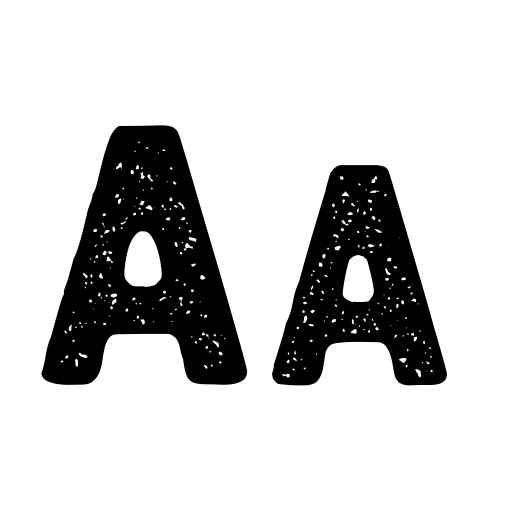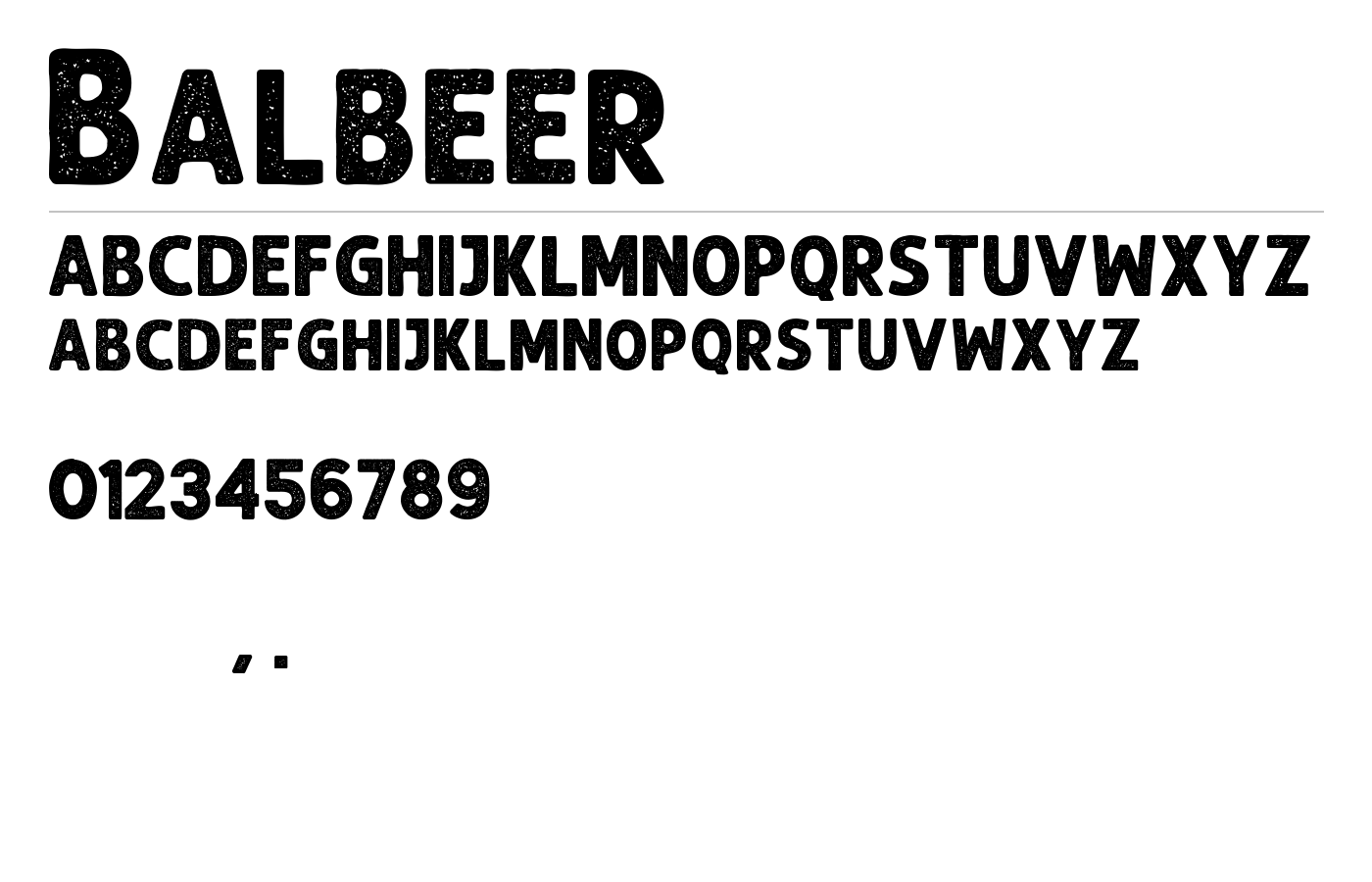
Balbeer is a bold, condensed sans serif font with a distinctive textured, vintage feel. Its sturdy letterforms and slightly rough edges give it a playful yet strong personality, making it ideal for branding, posters, and packaging that seek a retro or handcrafted look. This font works best in headlines or display uses where its unique style can stand out and add character.
Balbeer Font